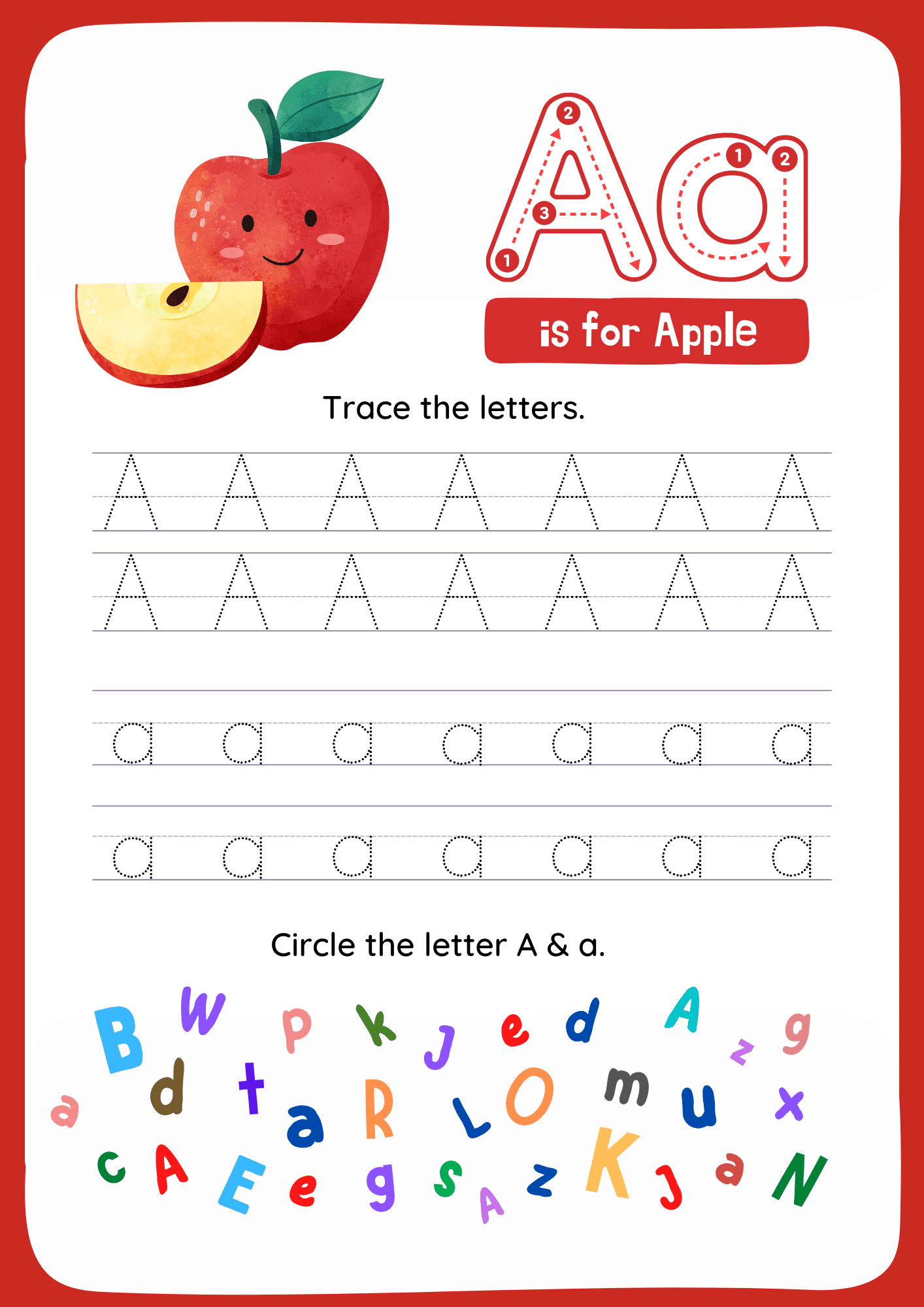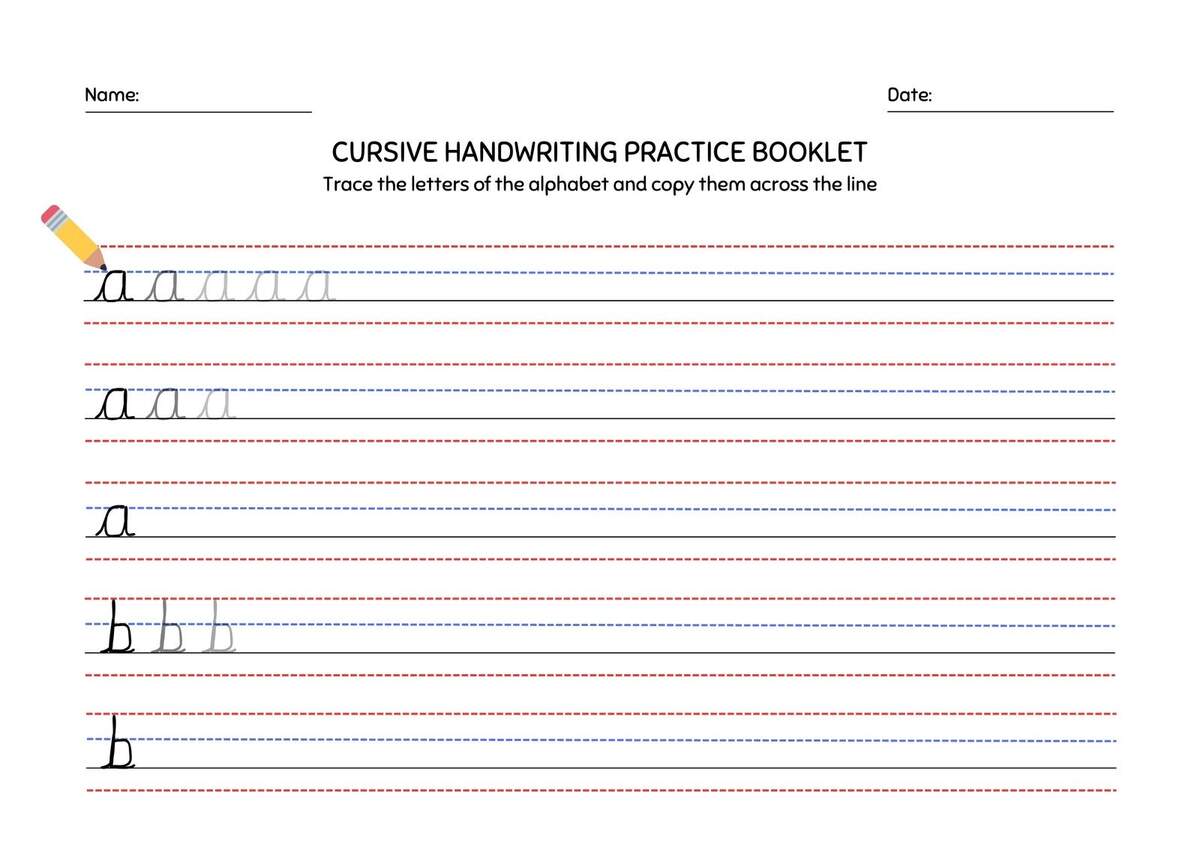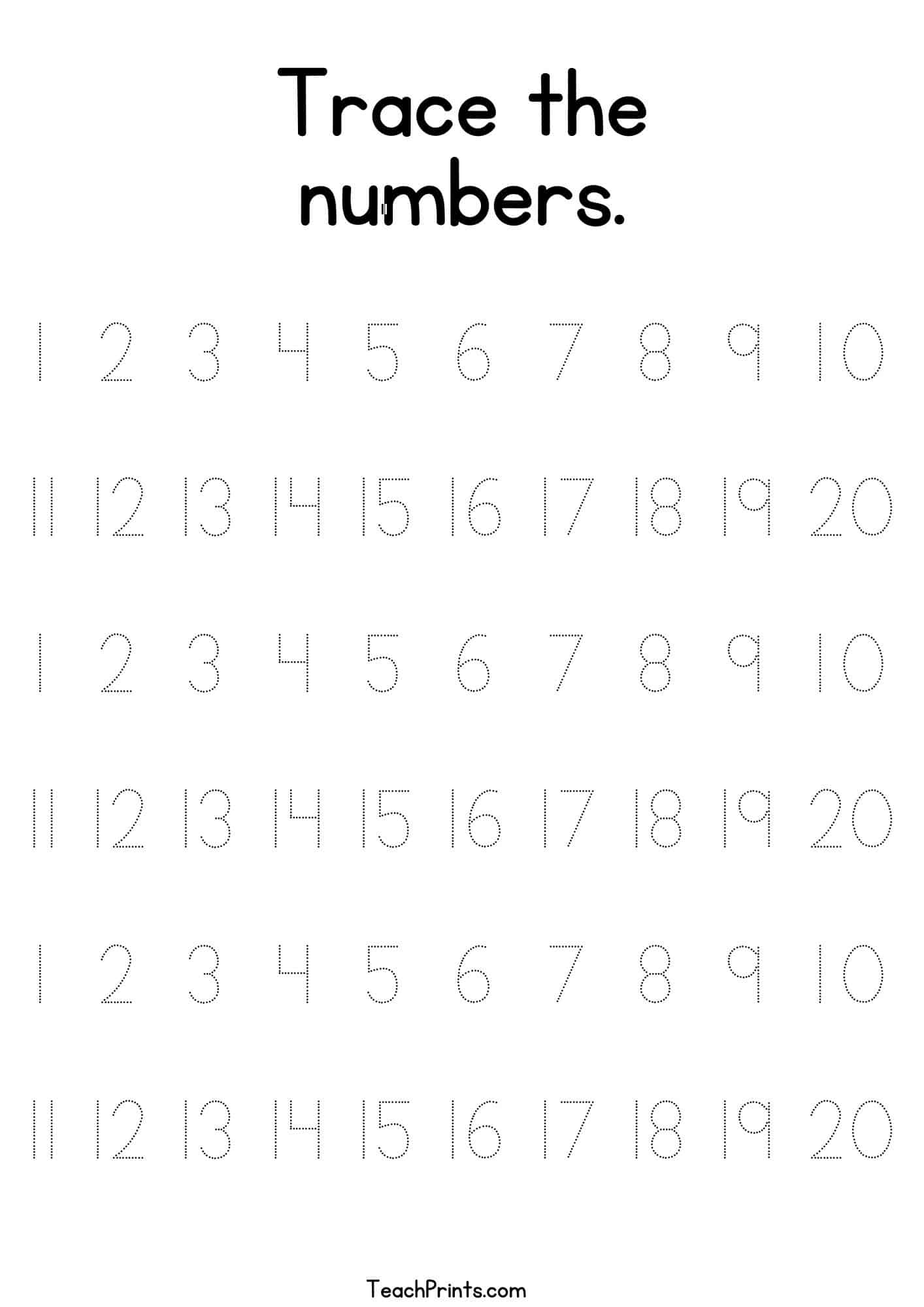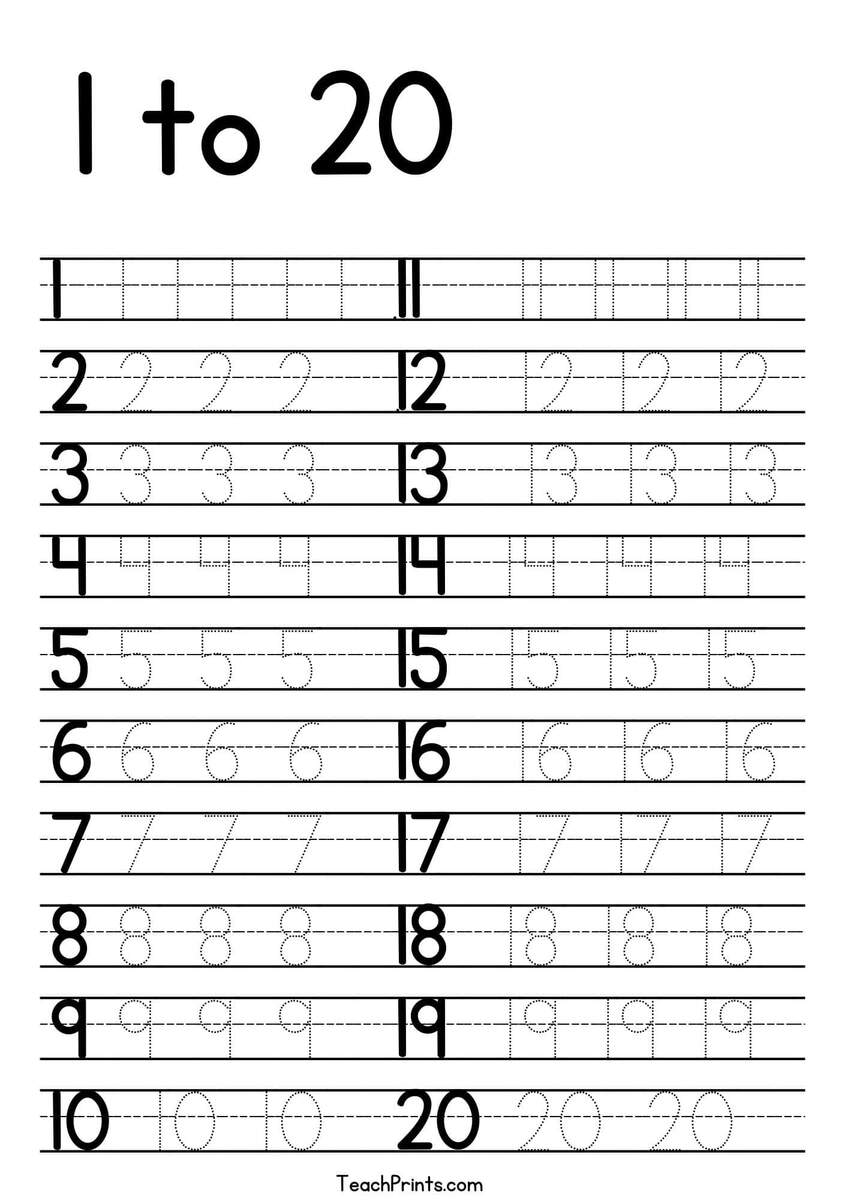
Trace Letters Font Microsoft Word 2010
When it comes to creating visually appealing documents, the right font can make all the difference. One font style that has gained popularity in recent years is the trace letters font. This unique font style involves tracing the outline of letters to create a beautiful and intricate design. In Microsoft Word 2010, users can easily access and utilize this font style to add a personal touch to their documents.
The trace letters font is particularly useful for creating decorative titles, headings, and signatures. It can also be used to add a creative element to invitations, greeting cards, and other personal documents. With its elegant and sophisticated design, the trace letters font is sure to impress readers and leave a lasting impression. Whether you’re a student, professional, or simply a Microsoft Word enthusiast, mastering the trace letters font can take your document creation to the next level.
What is Trace Letters Font?
The trace letters font is a type of font that involves tracing the outline of letters to create a beautiful and intricate design. This font style is often used in decorative titles, headings, and signatures, and can add a touch of elegance and sophistication to any document. In Microsoft Word 2010, the trace letters font can be accessed through the font menu, where users can select from a variety of trace font styles and sizes.
Tips and Tricks for Using Trace Letters Font
When using the trace letters font in Microsoft Word 2010, there are a few tips and tricks to keep in mind. First, users should experiment with different font sizes and styles to find the one that works best for their document. They should also pay attention to the spacing and alignment of the text, as this can affect the overall appearance of the document. Additionally, users can combine the trace letters font with other font styles and effects to create a unique and eye-catching design. By following these tips and tricks, users can unlock the full potential of the trace letters font and create stunning documents that stand out from the crowd.
In conclusion, the trace letters font is a powerful tool in Microsoft Word 2010 that can add a touch of elegance and sophistication to any document. With its unique and intricate design, this font style is perfect for creating decorative titles, headings, and signatures. By following the steps outlined in this guide, users can easily install and use the trace letters font to take their document creation to the next level. Whether you’re a student, professional, or simply a Microsoft Word enthusiast, mastering the trace letters font is sure to impress readers and leave a lasting impression.